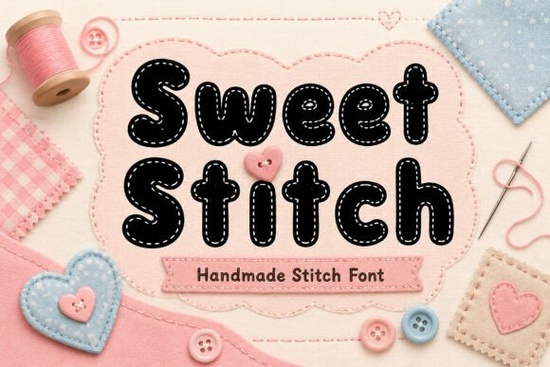
If you're looking for a font that adds a touch of charm and coziness to your designs, Sweet Stitch Font might just be what you need. This handmade display font is inspired by the warmth and creativity of sewing projects, fabric crafts, and stitched details, making it perfect for a variety of creative endeavors.
What Makes Sweet Stitch Font Stand Out?
Sweet Stitch is designed with playful stitched outlines and soft, rounded shapes. These elements give the font a unique, handcrafted feel that can bring a delightful personality to any project. Whether you're working on nursery prints, baby products, or Cricut crafts, this font adds a charming, homemade touch that stands out.
Perfect for a Variety of Projects
One of the great things about Sweet Stitch is its versatility. It's ideal for sublimation designs, stickers, t-shirts, mugs, greeting cards, and social media graphics. The cute and friendly appearance of the font makes it especially suitable for children's designs, handmade business branding, Etsy products, and craft projects. If you're into scrapbook layouts, invitations, or heartwarming quotes, Sweet Stitch can add that special, handcrafted touch.
How to Use Sweet Stitch in Your Designs
Incorporating Sweet Stitch into your designs is straightforward. Here are a few tips to help you get started:
- Combine with Other Fonts: Pair Sweet Stitch with a clean, sans-serif font like Sunny Groove for a balanced look. This combination works well for both digital and print projects.
- Use for Headings and Titles: Sweet Stitch is perfect for headings and titles. Its playful and eye-catching style can draw attention to important parts of your design.
- Add to Social Media Graphics: Use Sweet Stitch to create engaging social media posts. Its friendly appearance can make your content more appealing and shareable.
Where to Use Sweet Stitch Font
Here are some specific areas where Sweet Stitch can shine:
- Nursery Prints and Baby Products: The soft, rounded shapes and stitched outlines make Sweet Stitch a great choice for creating adorable nursery prints and baby-themed products.
- Craft Projects and DIY Branding: Whether you're crafting for fun or running a small business, Sweet Stitch can add a personal, handmade touch to your projects and branding.
- Etsy and Handmade Business Branding: For those selling on Etsy or other handmade marketplaces, Sweet Stitch can help you create a consistent, charming brand identity.
Compare with Other Display Fonts
Practical Tips for Using Sweet Stitch Font
To get the most out of Sweet Stitch, here are a few practical tips:
- Test Different Sizes and Colors: Experiment with different sizes and colors to see what works best for your project. Sweet Stitch can look great in both large and small sizes, and the right color can make it pop.
- Keep It Simple: While Sweet Stitch is playful, avoid overcomplicating your design. Keep the rest of your elements simple to let the font stand out.
- Use for Special Occasions: Consider using Sweet Stitch for special occasions like birthdays, weddings, and holidays. Its friendly and warm appearance can add a personal touch to your event-related designs.
By following these tips, you can effectively use Sweet Stitch Font to add a charming, handcrafted touch to your creative projects. Whether you're a designer, crafter, or small business owner, this font can help you create designs that stand out and connect with your audience.